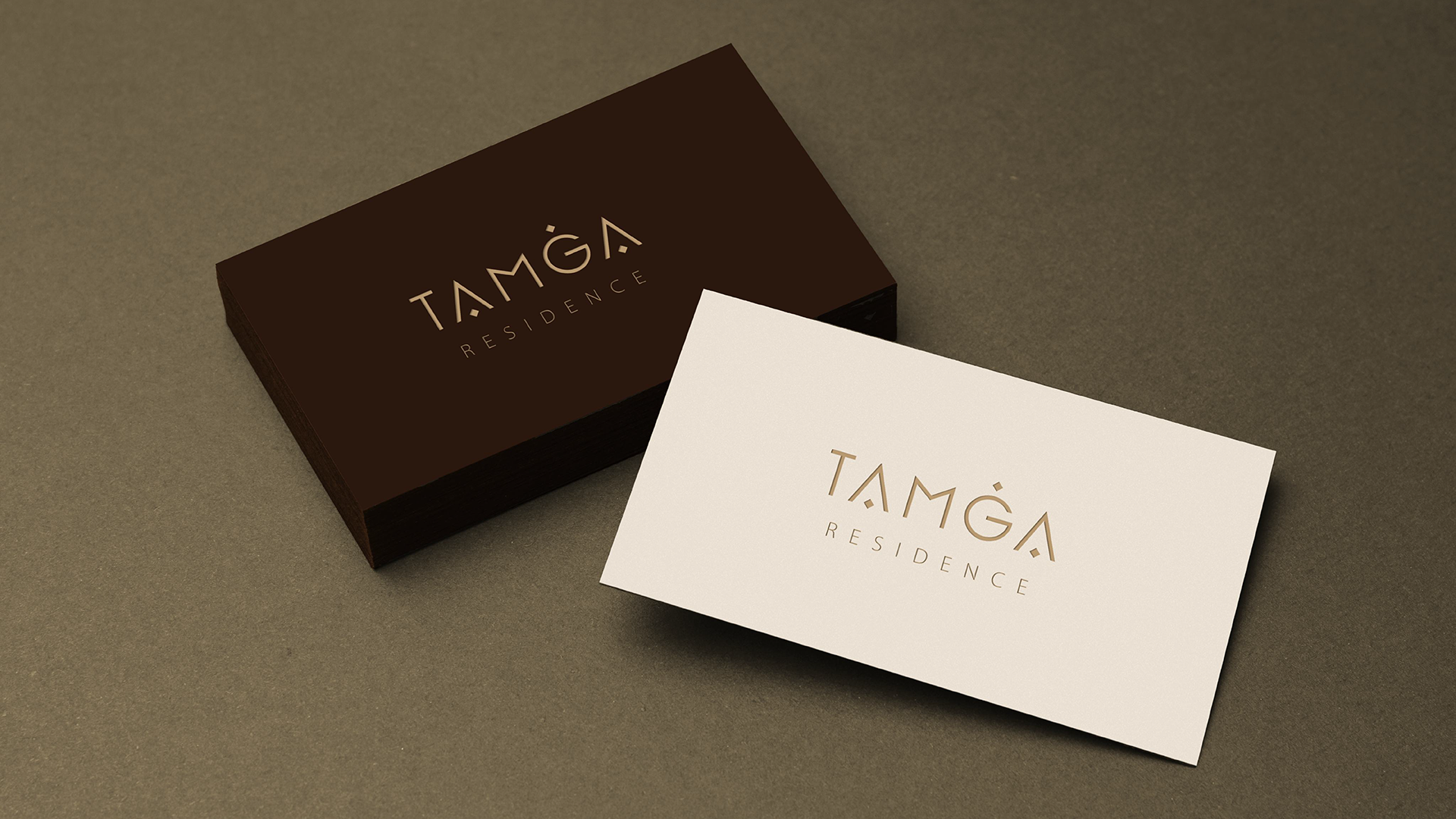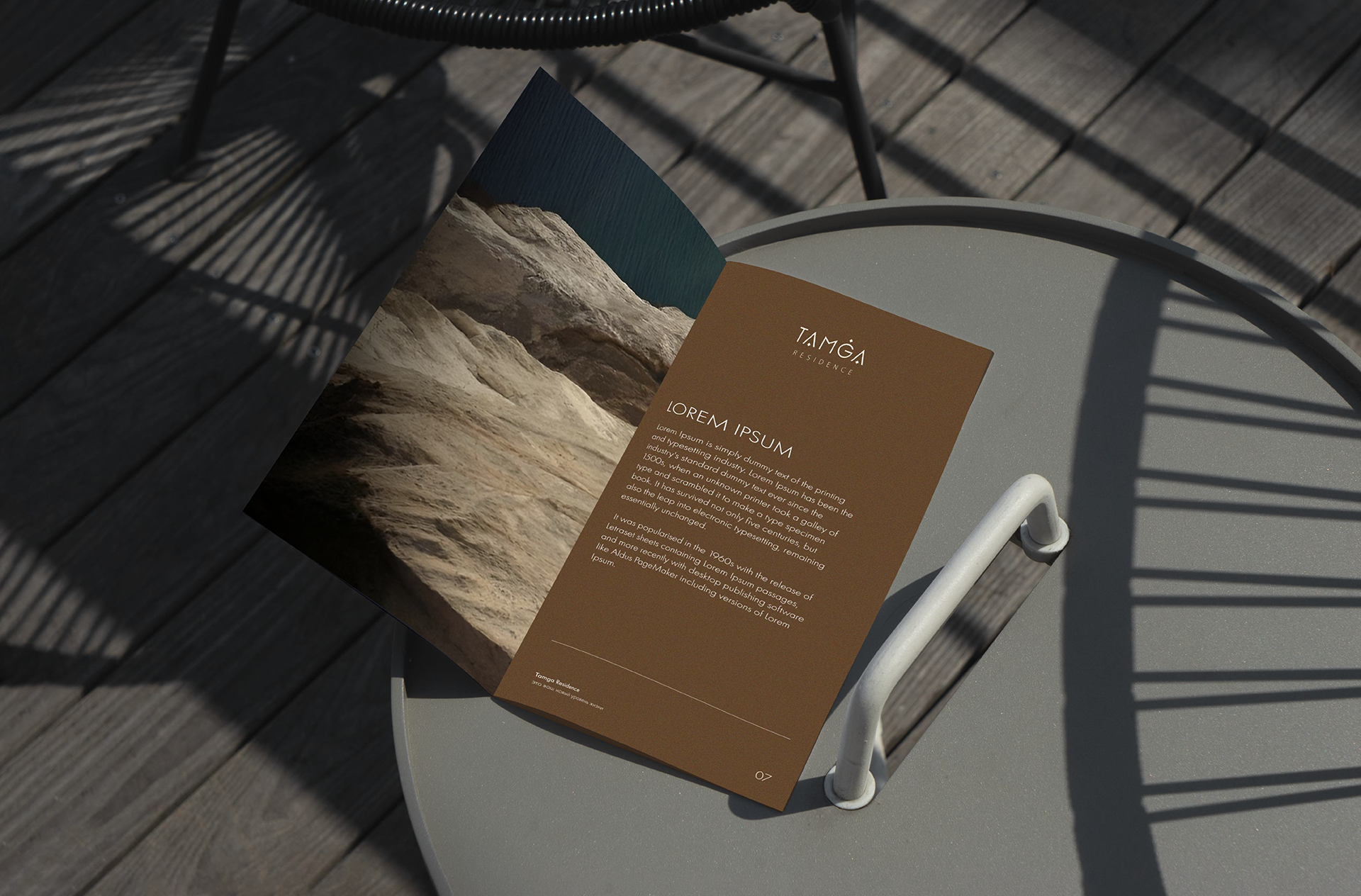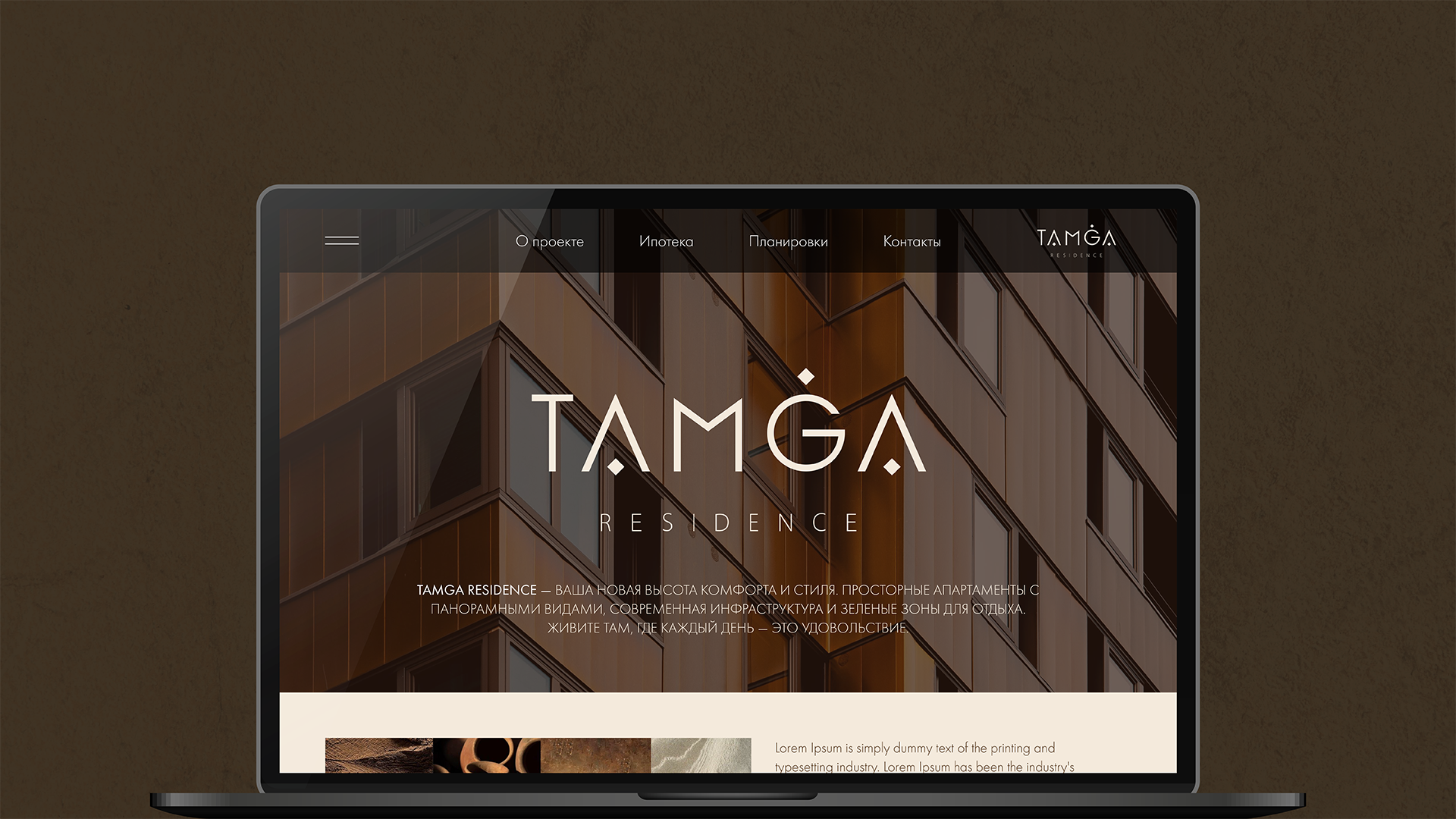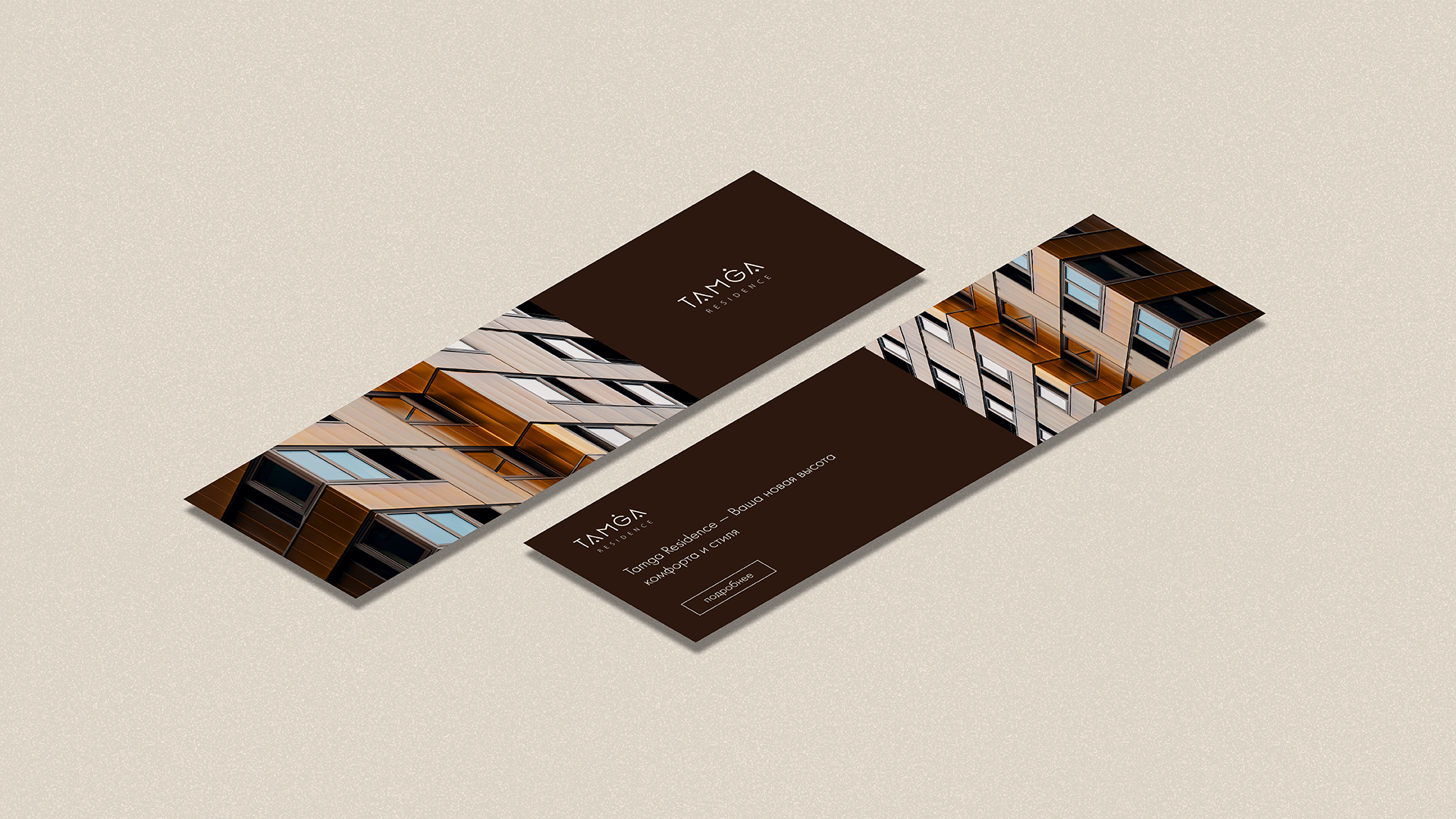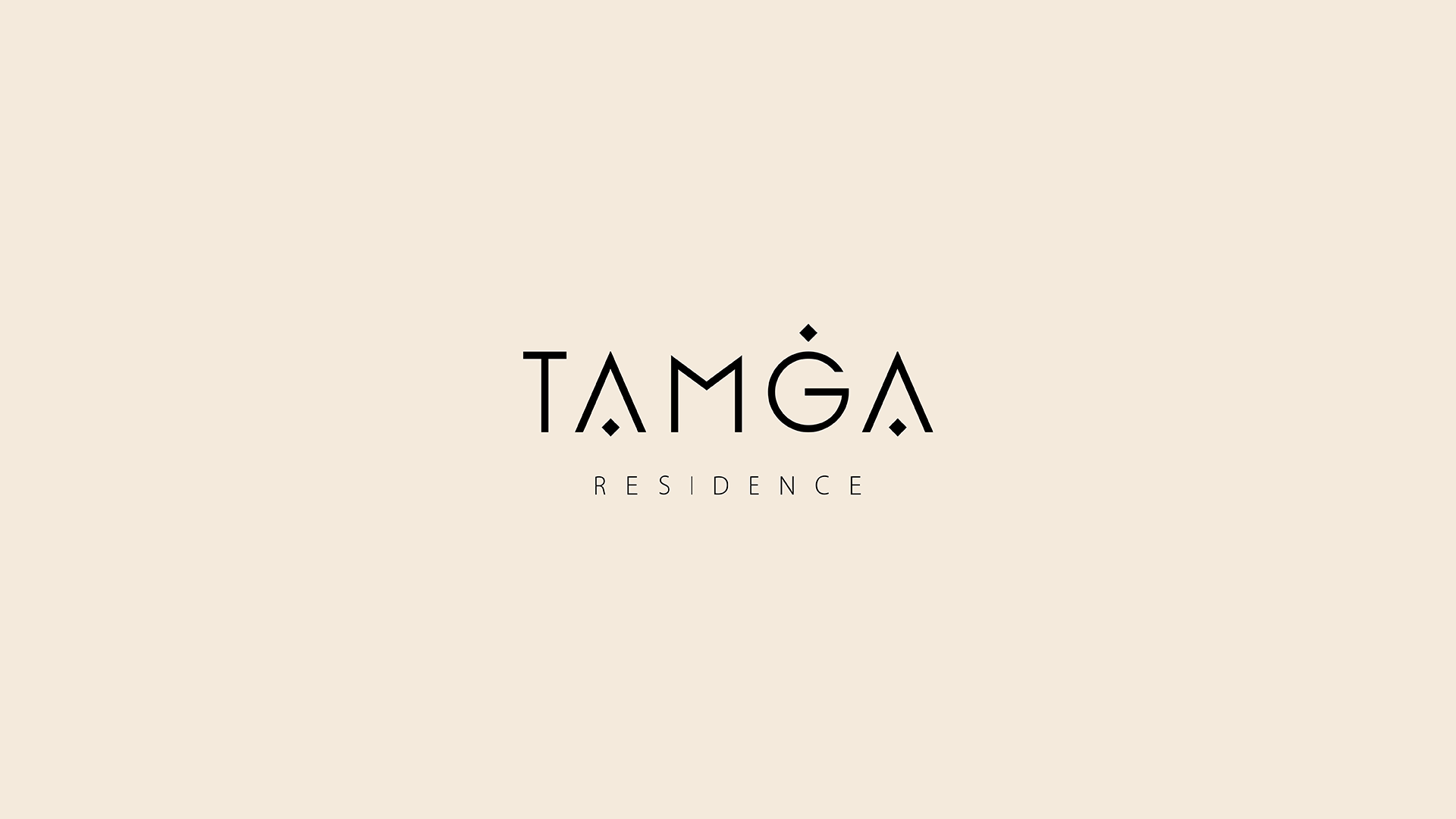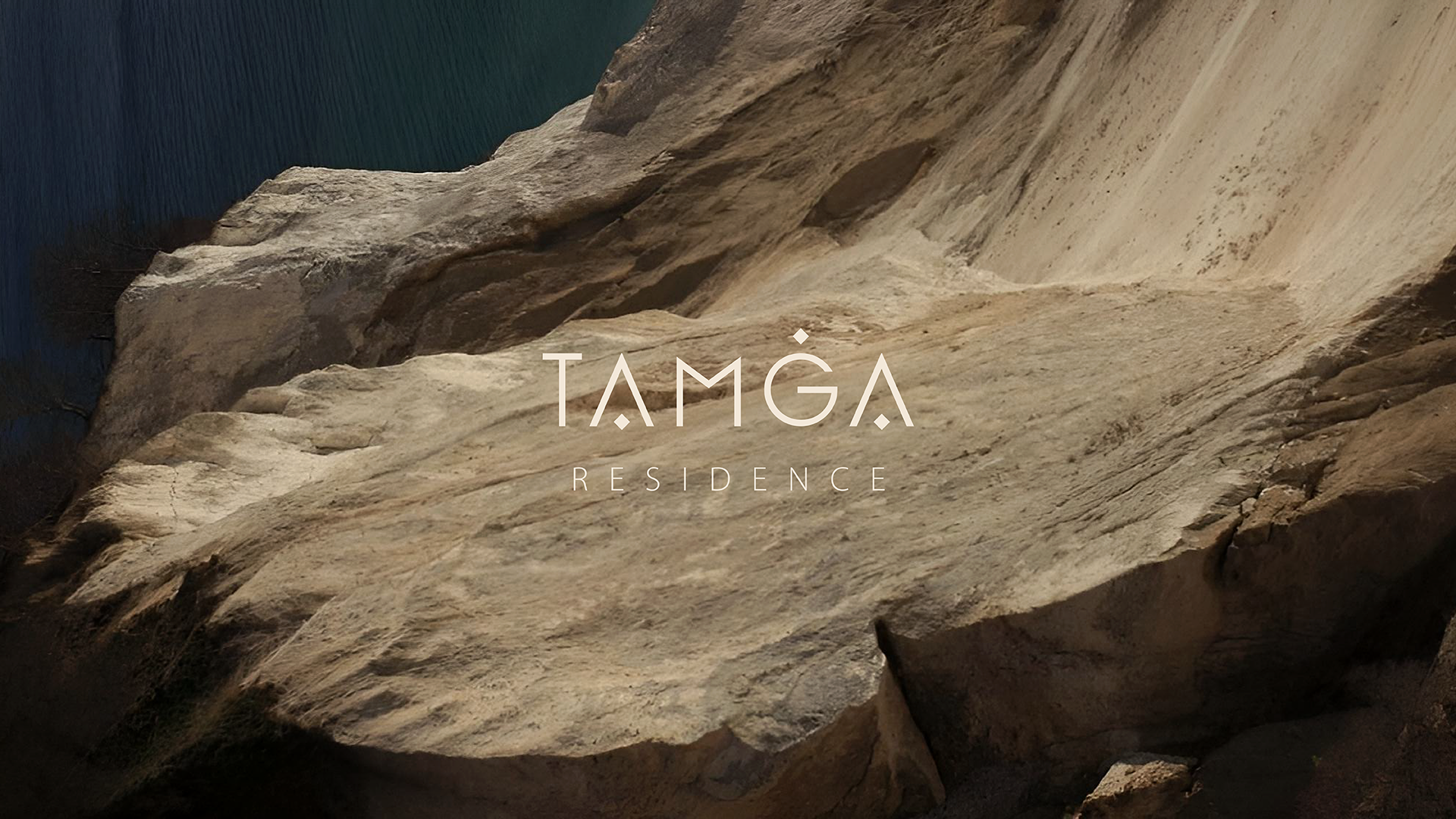
Tamga Residence by BI Group development company
We developed the naming and visual identity for the new residential complex of the development company BI Group. The Tamga Residence concept is based on the symbol of the family tamga, a sign that has accompanied Kazakh clans for centuries. It is not just a logo, but a reminder of heritage and continuity. The logo is strict, balanced, and modern, incorporating graphic elements of family tamgas. Its proportions maintain an easy-to-read feel and a sense of reliability. The color palette in the Tamga Residence branding is inspired by nature itself: warm terracotta tones evoke the handcrafted work of artisans and the comfort of a home, while light, almost weightless shades create an atmosphere of the lightness and spaciousness of the Kazakh steppe.